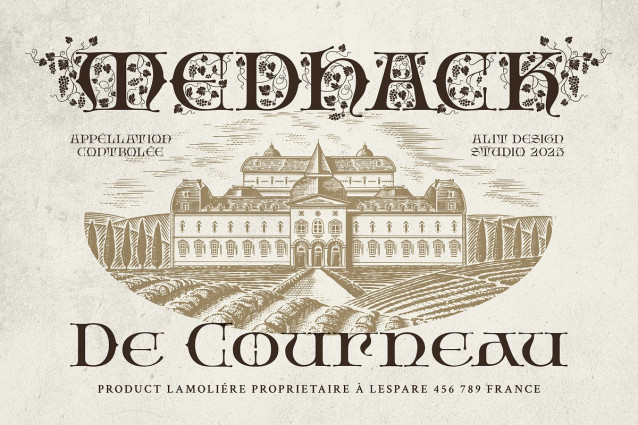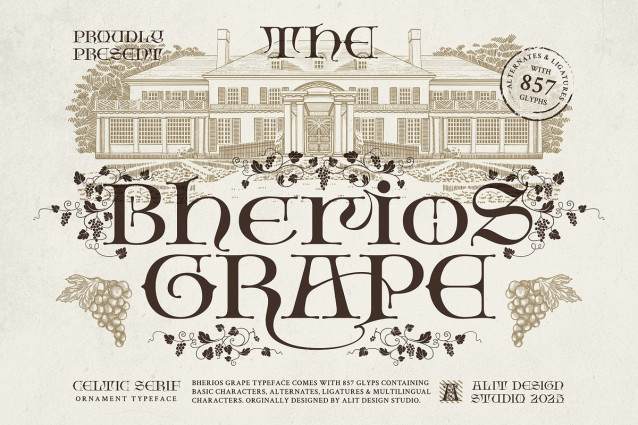
Bherios Grape Font
Bherios Grape Font, a classic serif typeface that masterfully blends historical charm with intricate natural beauty. This font evokes the stately sophistication of a bygone era, drawing inspiration from early 20th-century European craftsmanship and vintage print, reminiscent of the detailed artistry seen around the World War I period.
The true soul of Bherios Grape lies in its breathtaking stylistic alternates. With the click of a button, you can transform standard letters into stunning illustrations, each character delicately interwoven with ornate grapevines, leaves, and fruit clusters. This unique feature allows you to effortlessly infuse your projects with a touch of organic, decorative flair.
With its strong, classic letterforms and artistic flourishes, Bherios Grape is perfectly suited for designs that require a statement of distinction and heritage. While rooted in a classic serif structure, its ornamental elegance can complement themes from Art Nouveau’s natural forms to the sophisticated grandeur of Art Deco.